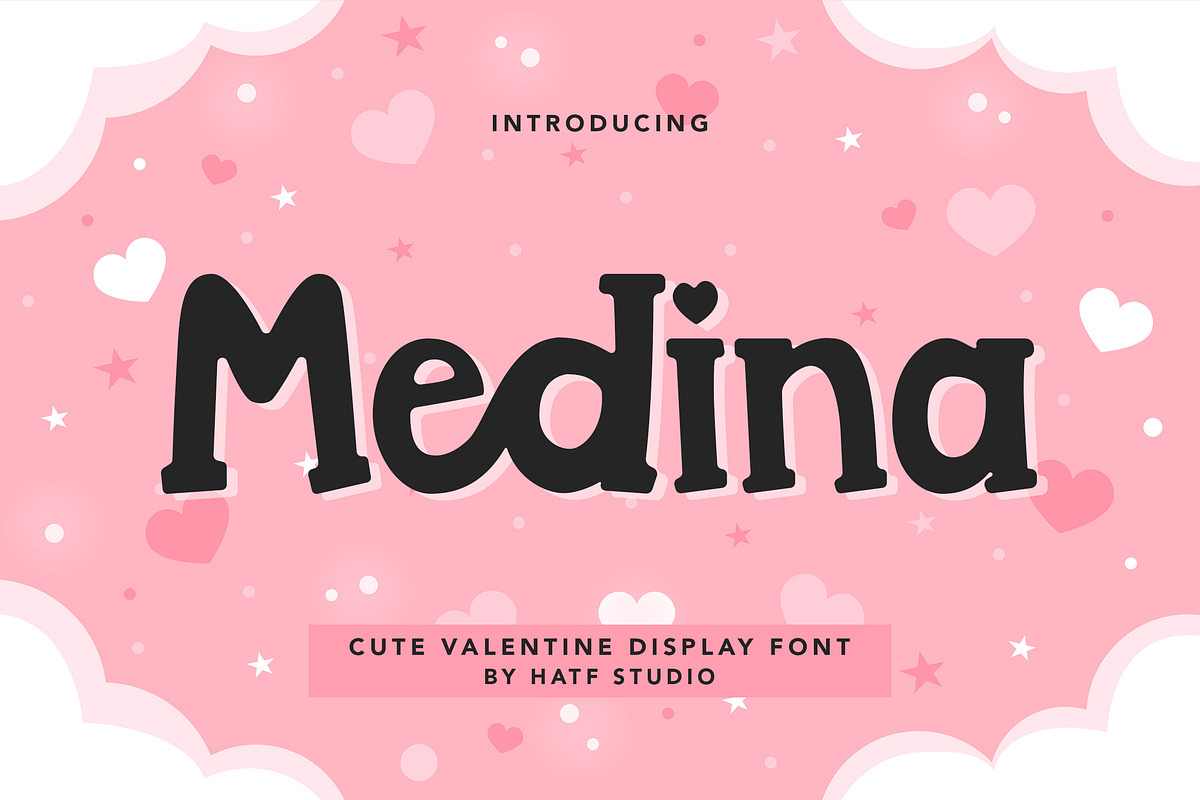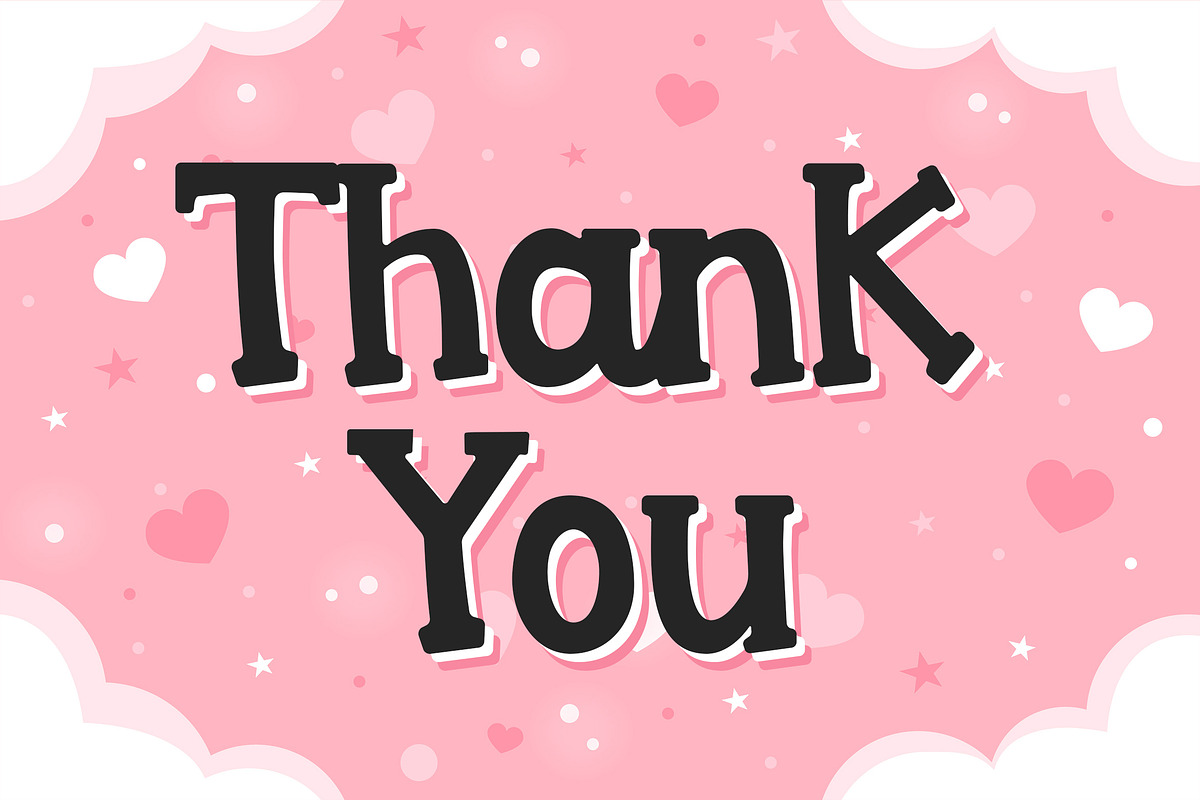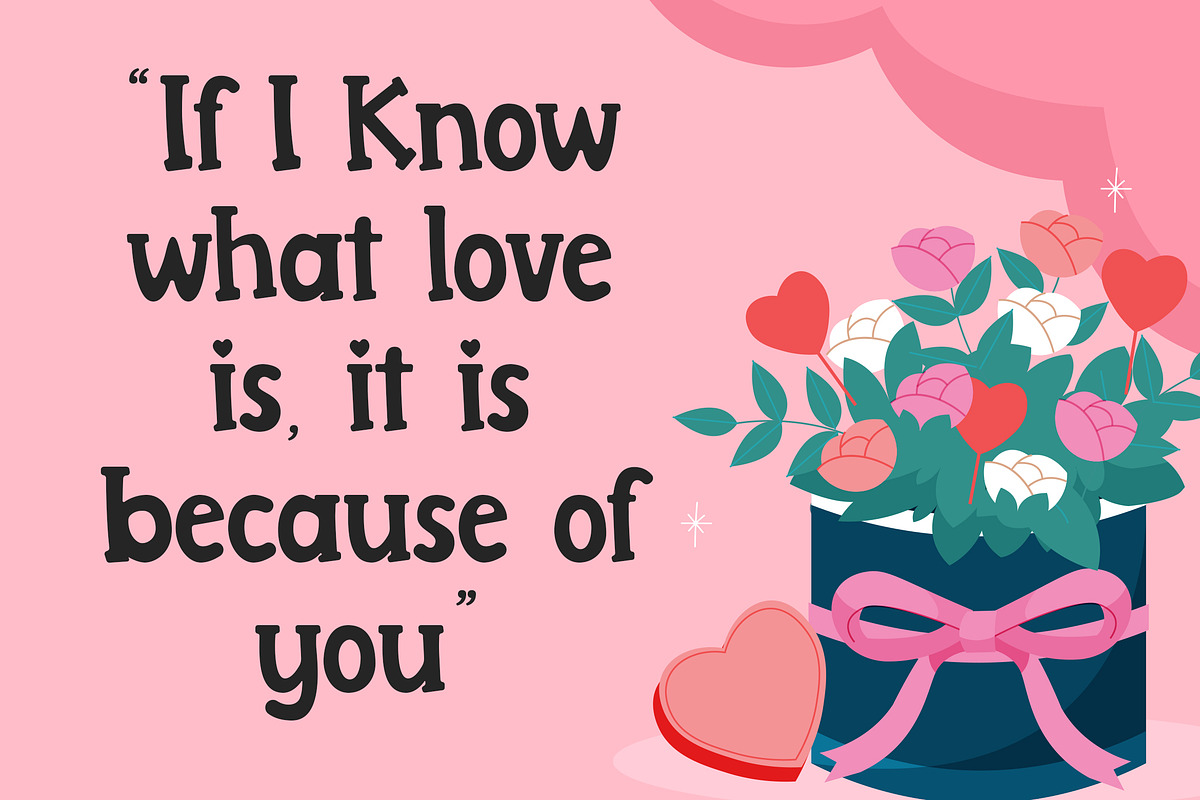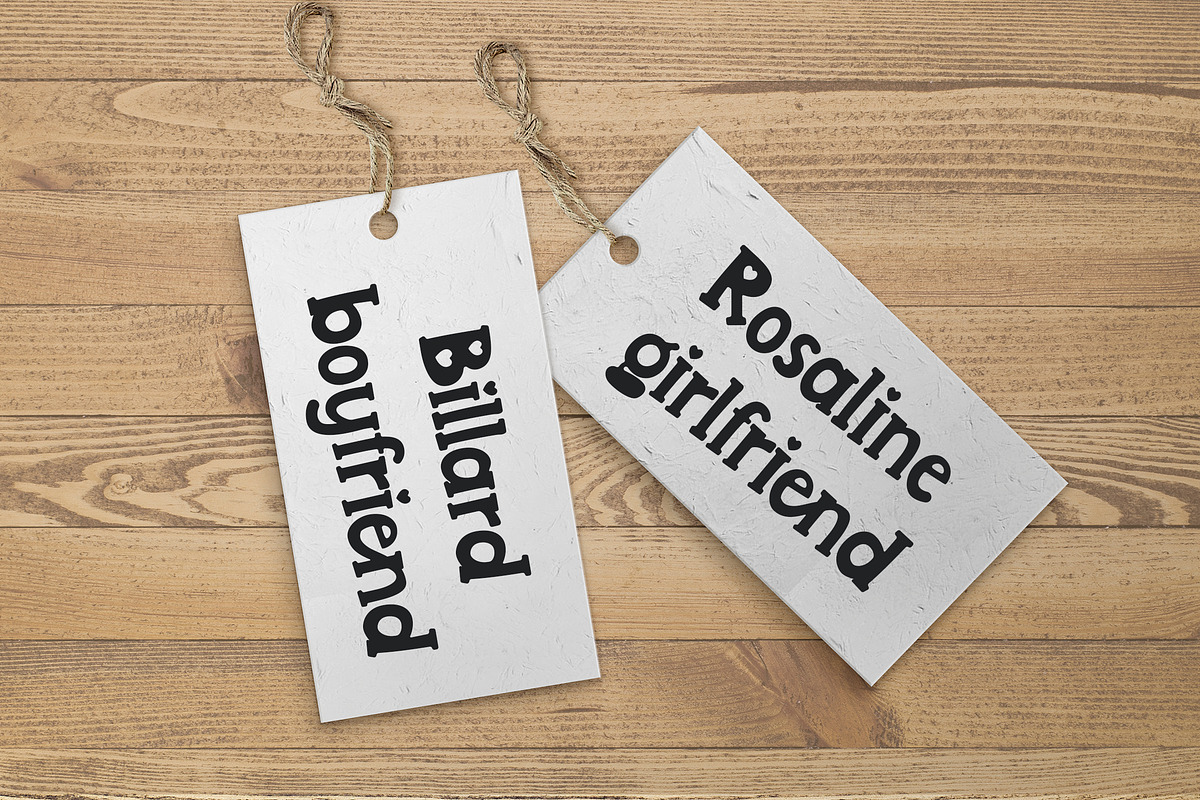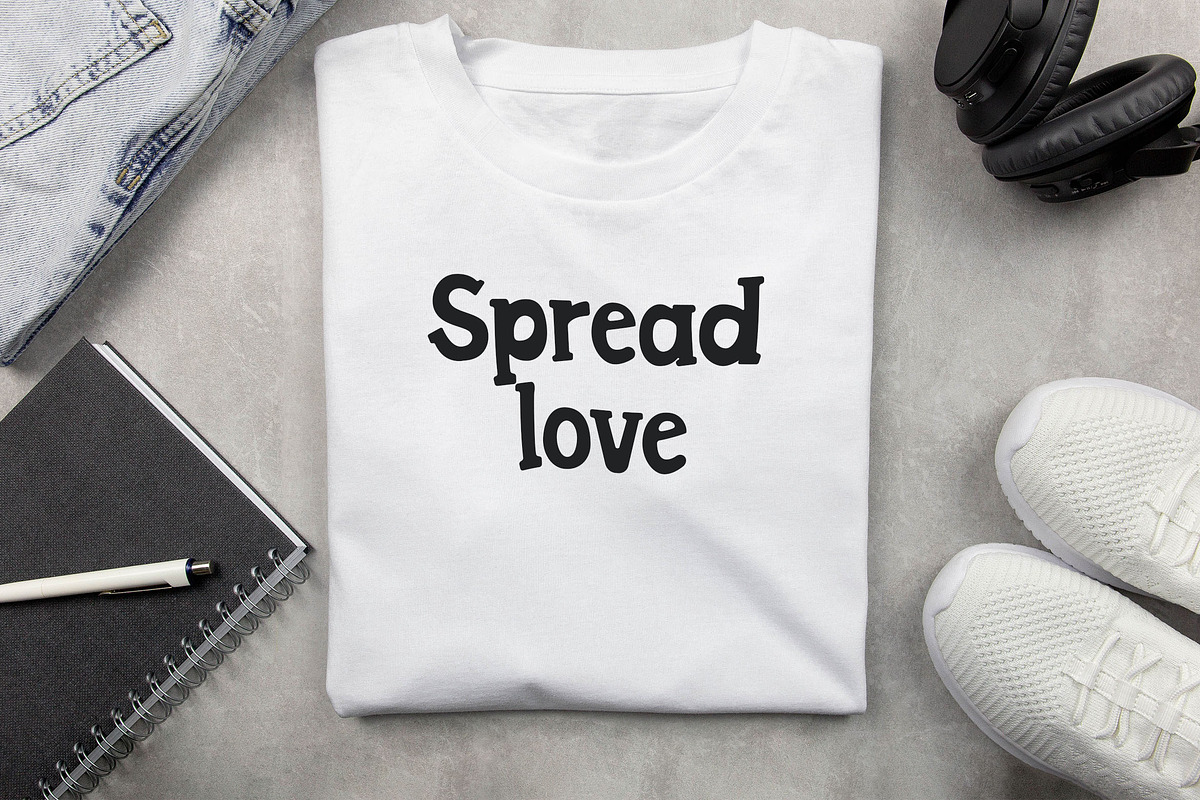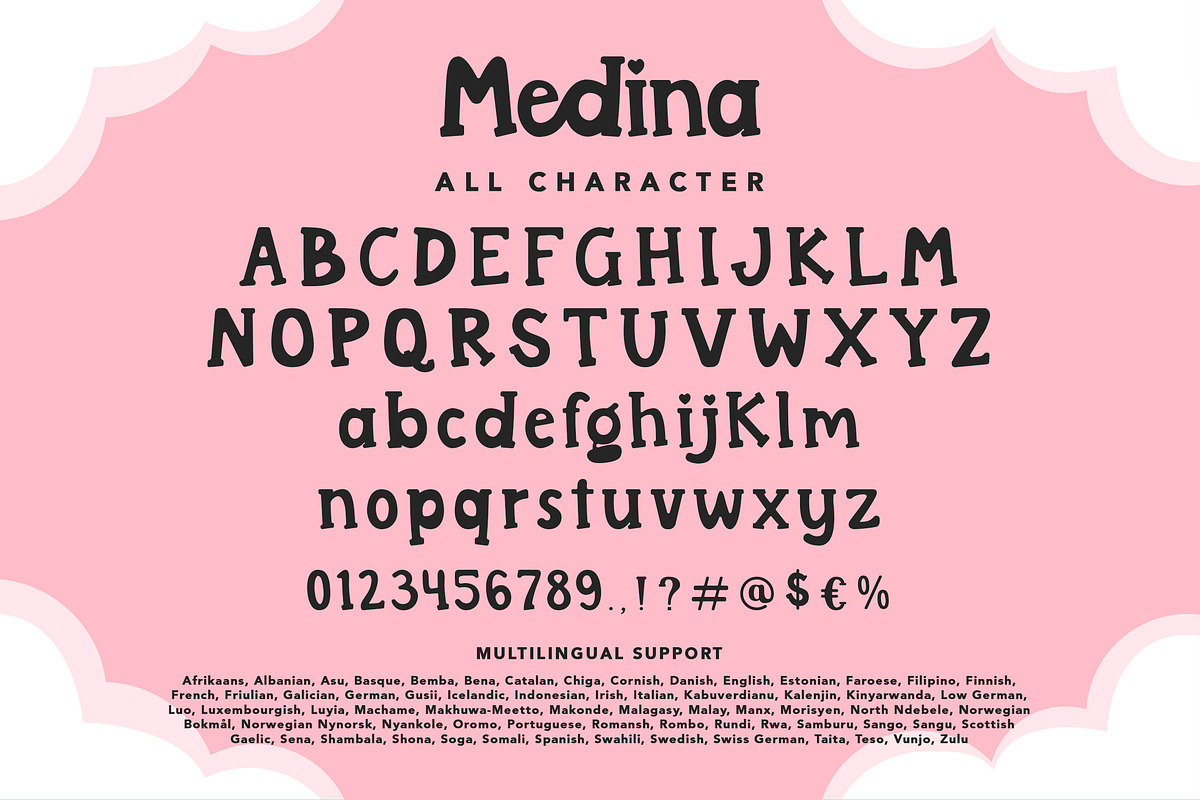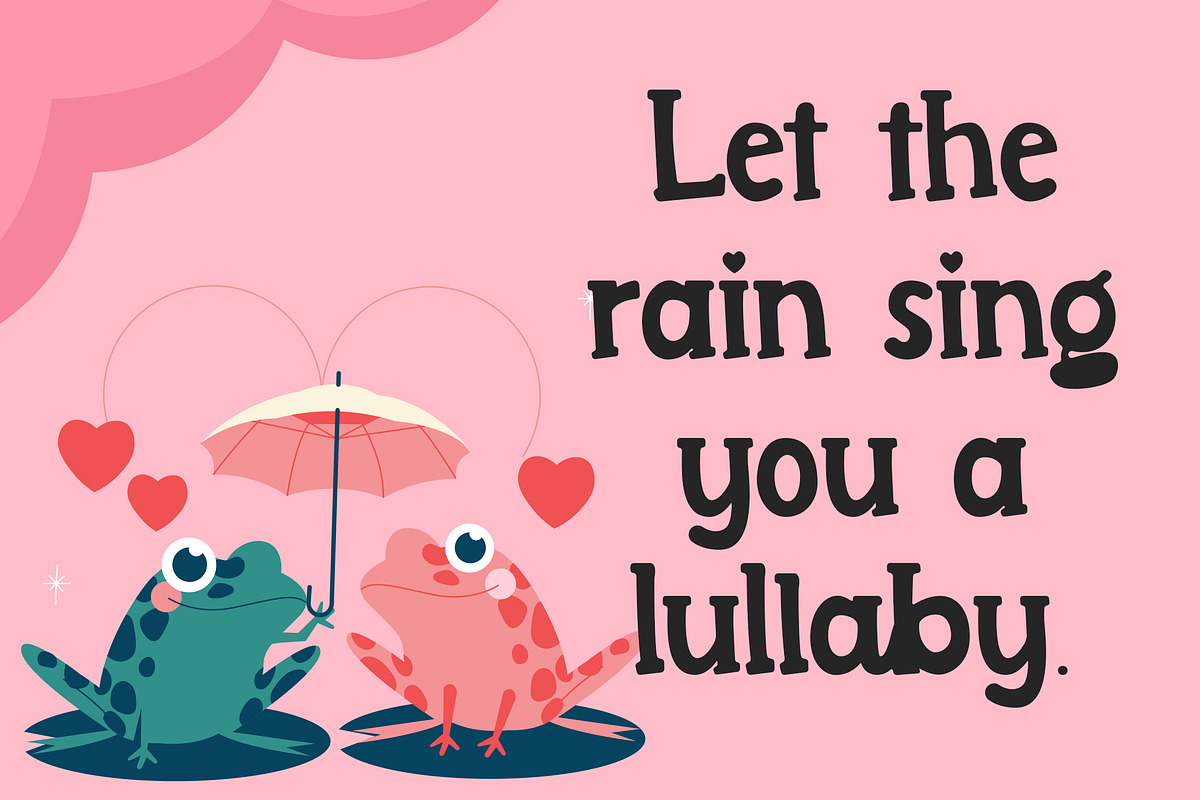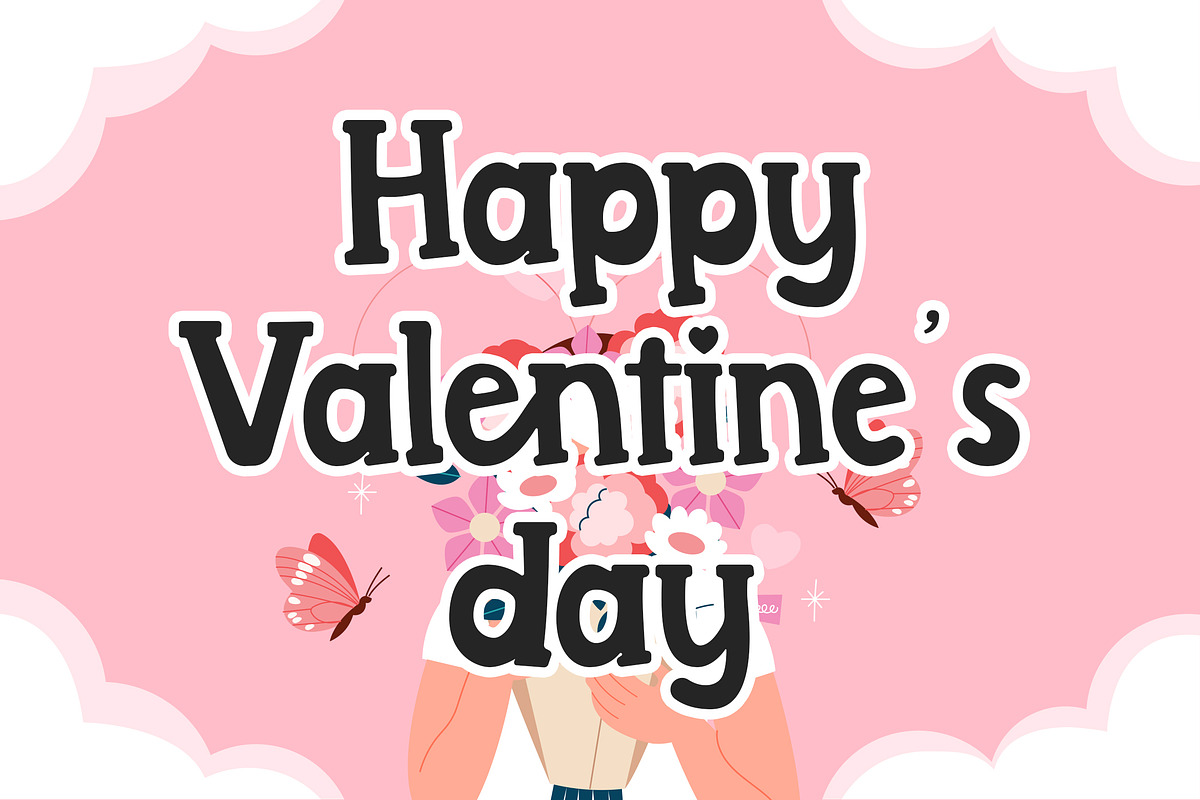
Medina
Is a cute valentine font with distinctive handwritten characters perfect for branding projects, logos, wedding designs, media posts, advertisements, product packaging, product designs, labels, photography, watermarks, invitations, stationery, and any project who need handwritten dishes.